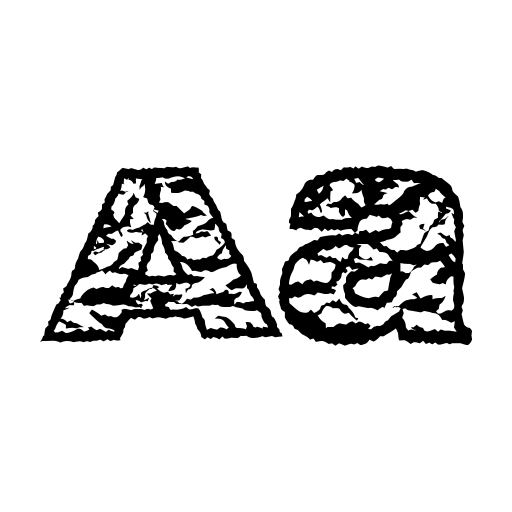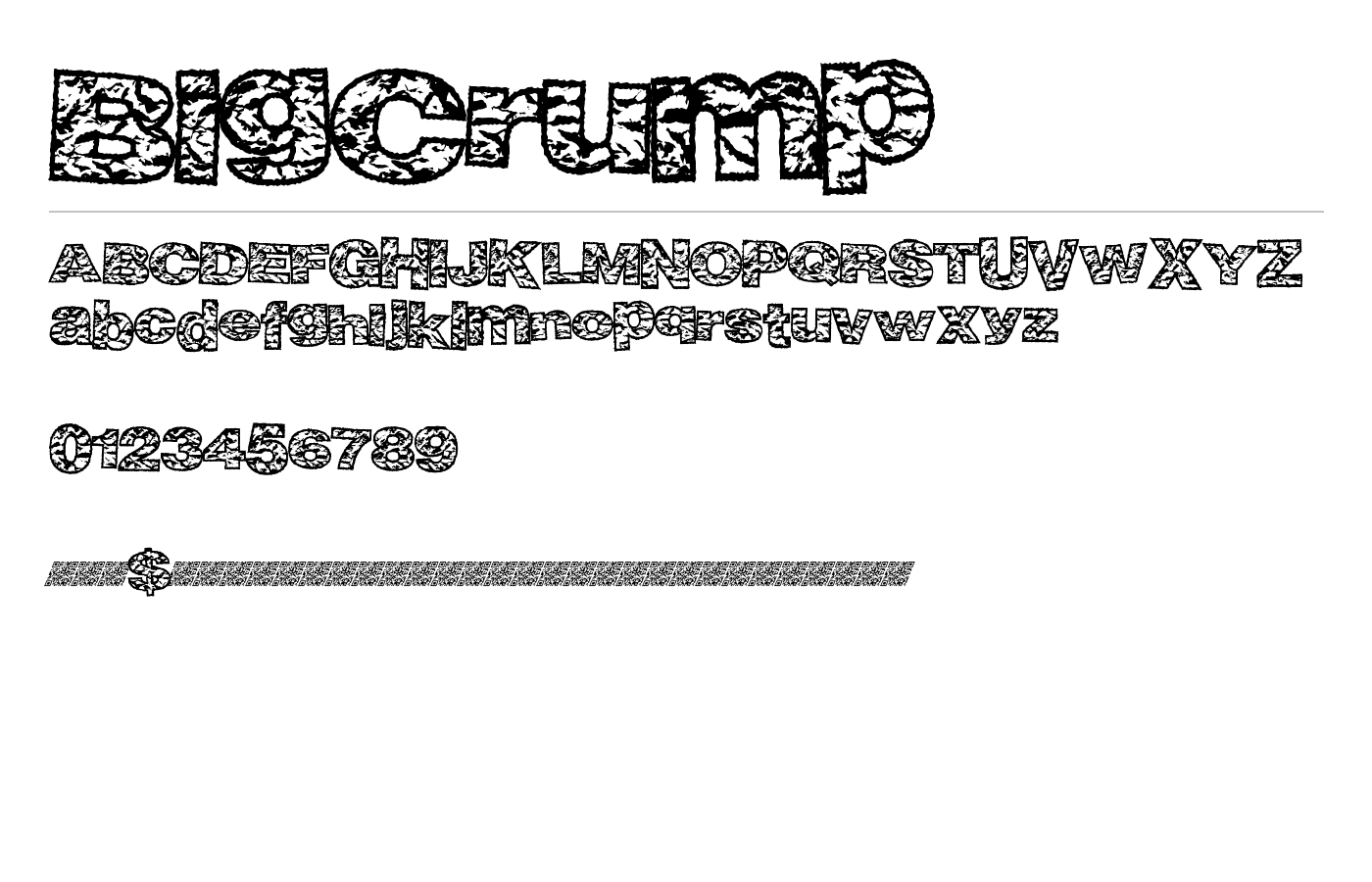
BigCrump is a bold, textured sans serif font with a playful and rugged appearance, featuring thick, irregular strokes that give it a distressed, cracked surface effect. Its wide, chunky letterforms create strong visual impact, making it ideal for attention-grabbing headlines, posters, and creative branding that wants to evoke a sense of fun and edginess. This font works best where a unique, informal style is needed to stand out in a noisy visual environment.
BigCrump Font
About BigCrump Font